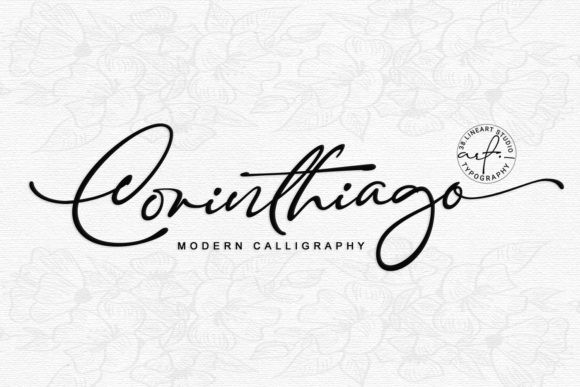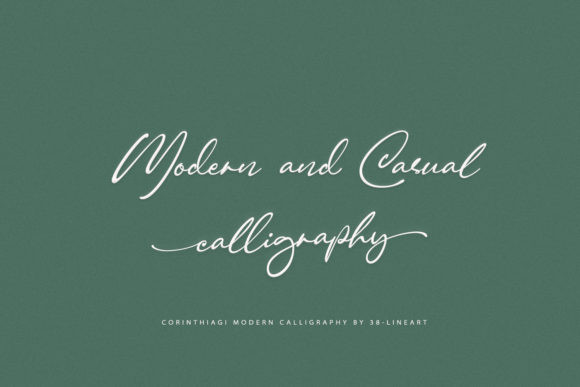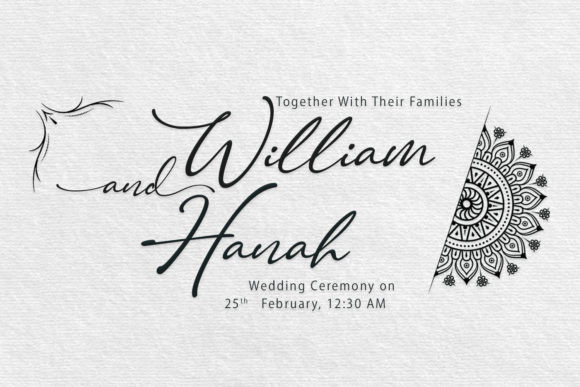
Corinthiago Font
Corinthiago feels equally charming and elegant. This stunning handwritten font is a stylish homage to classic calligraphy. It features a varying baseline, smooth lines, gorgeous glyphs and stunning alternates.